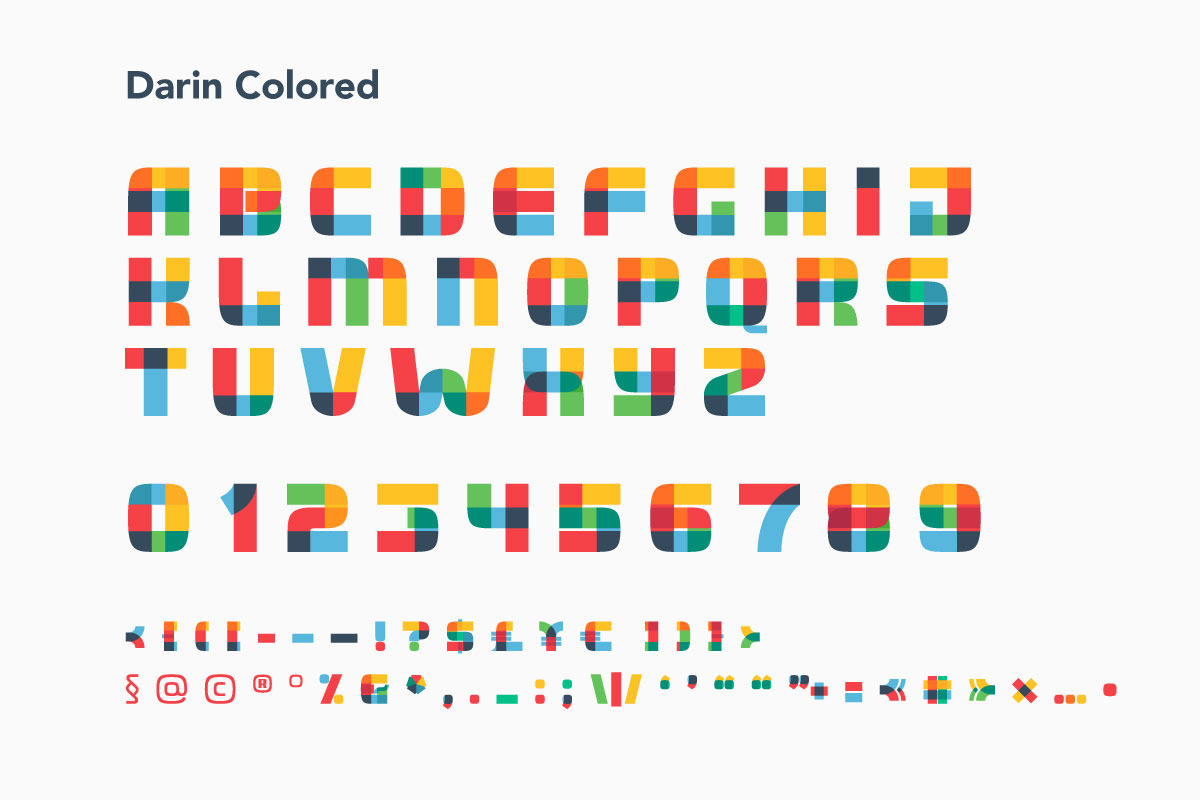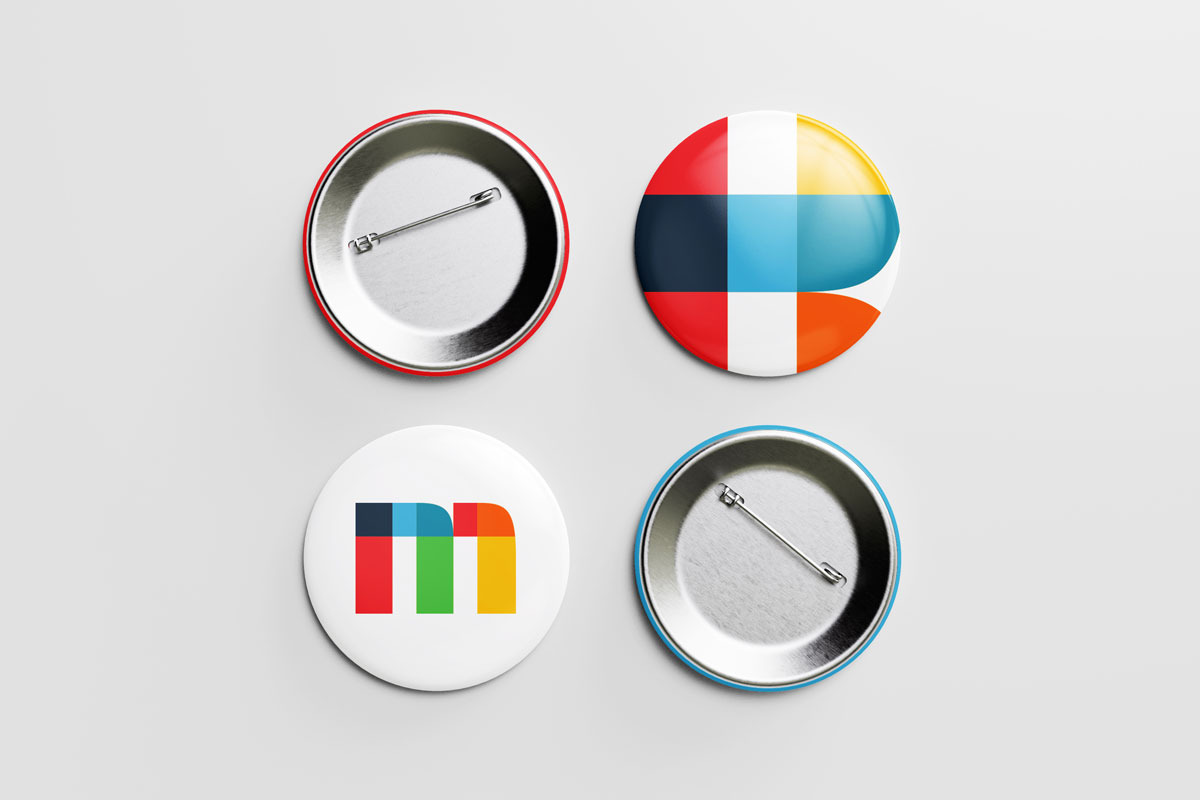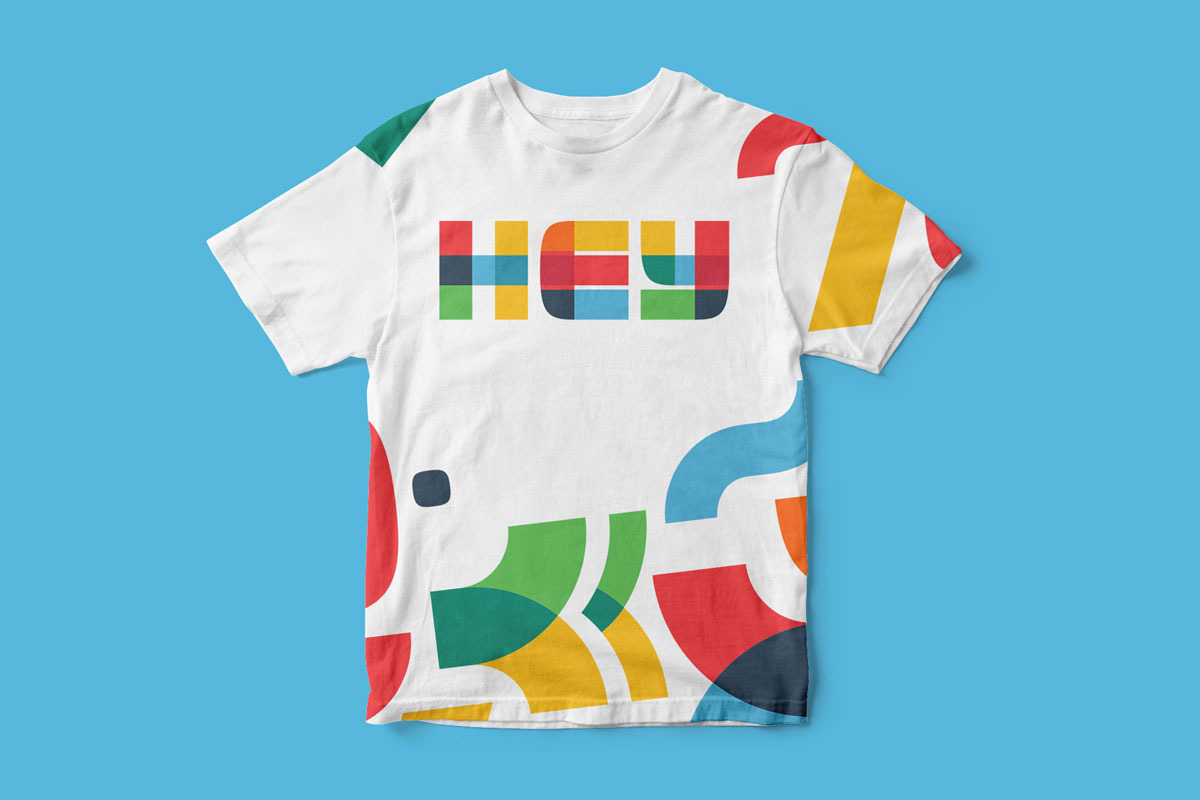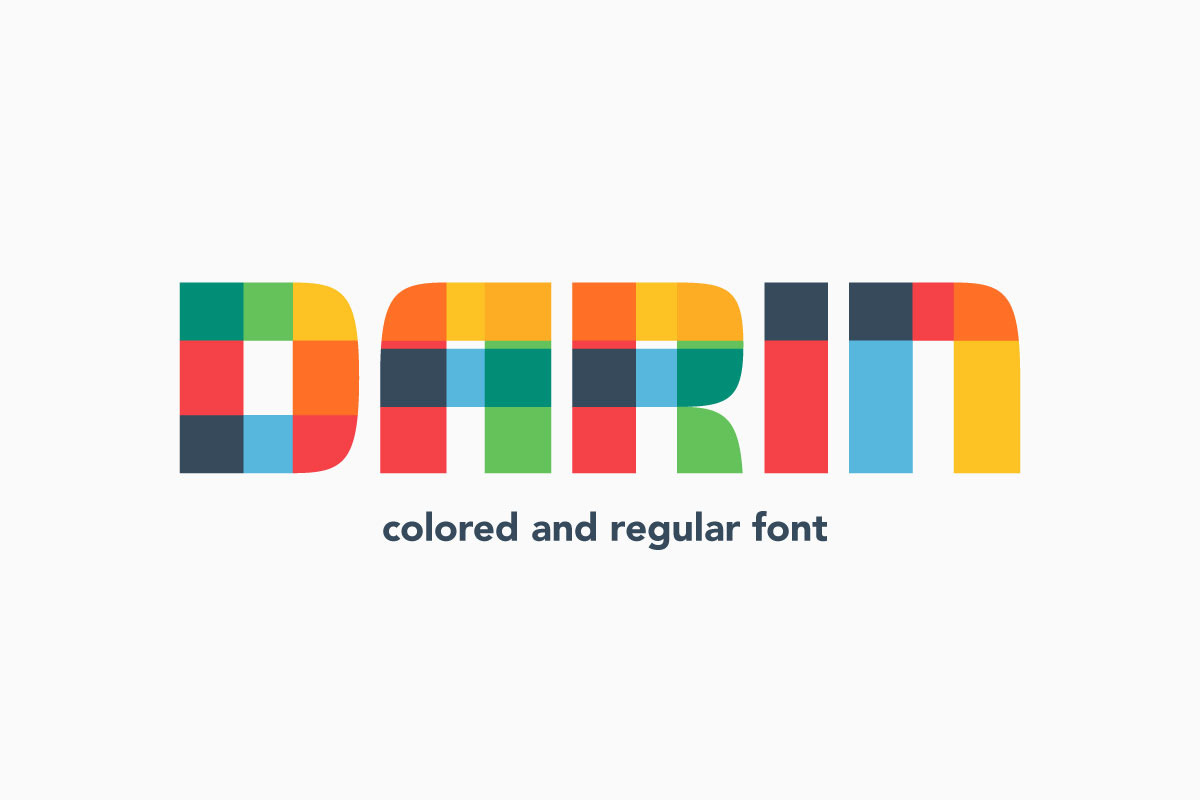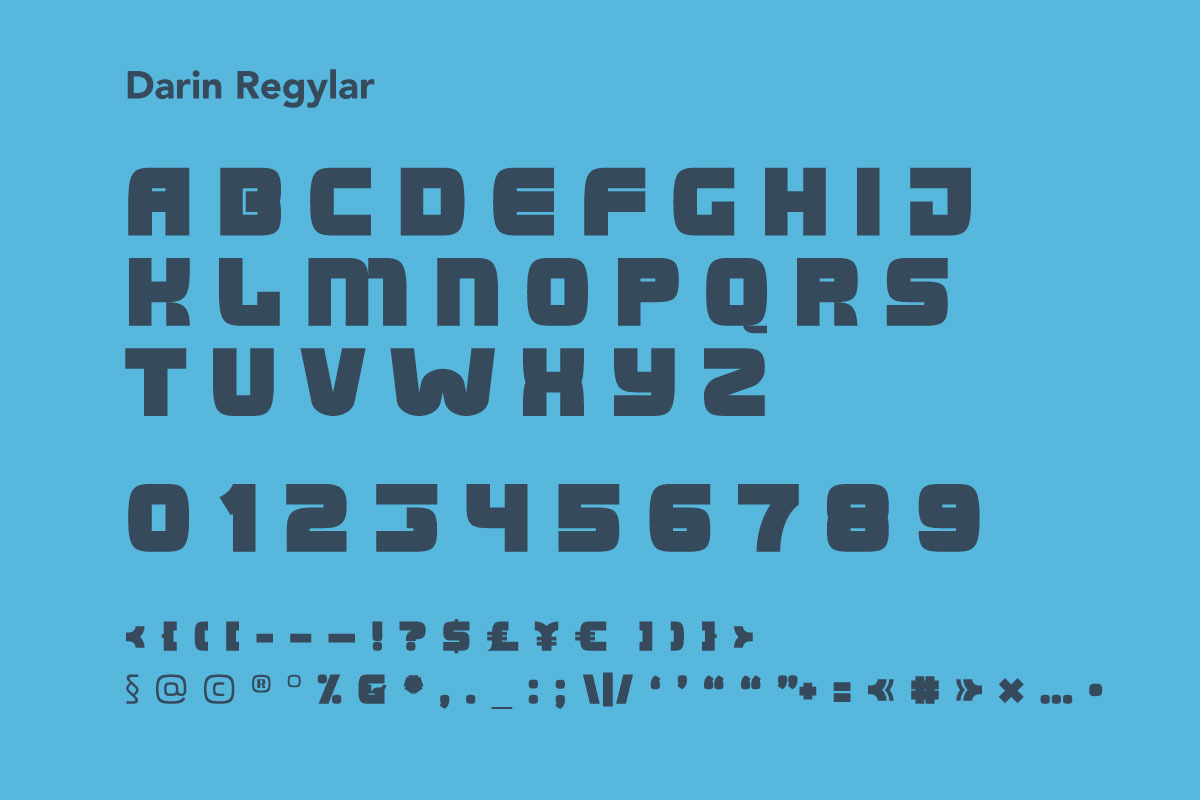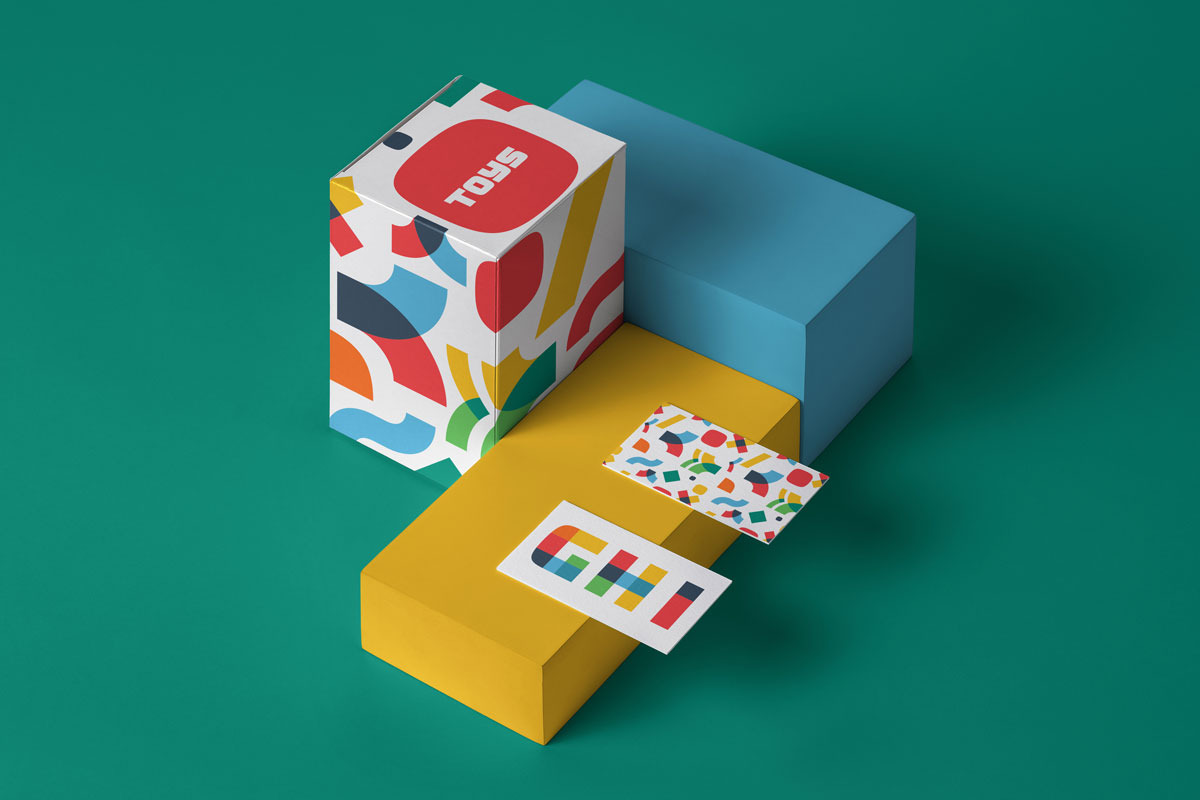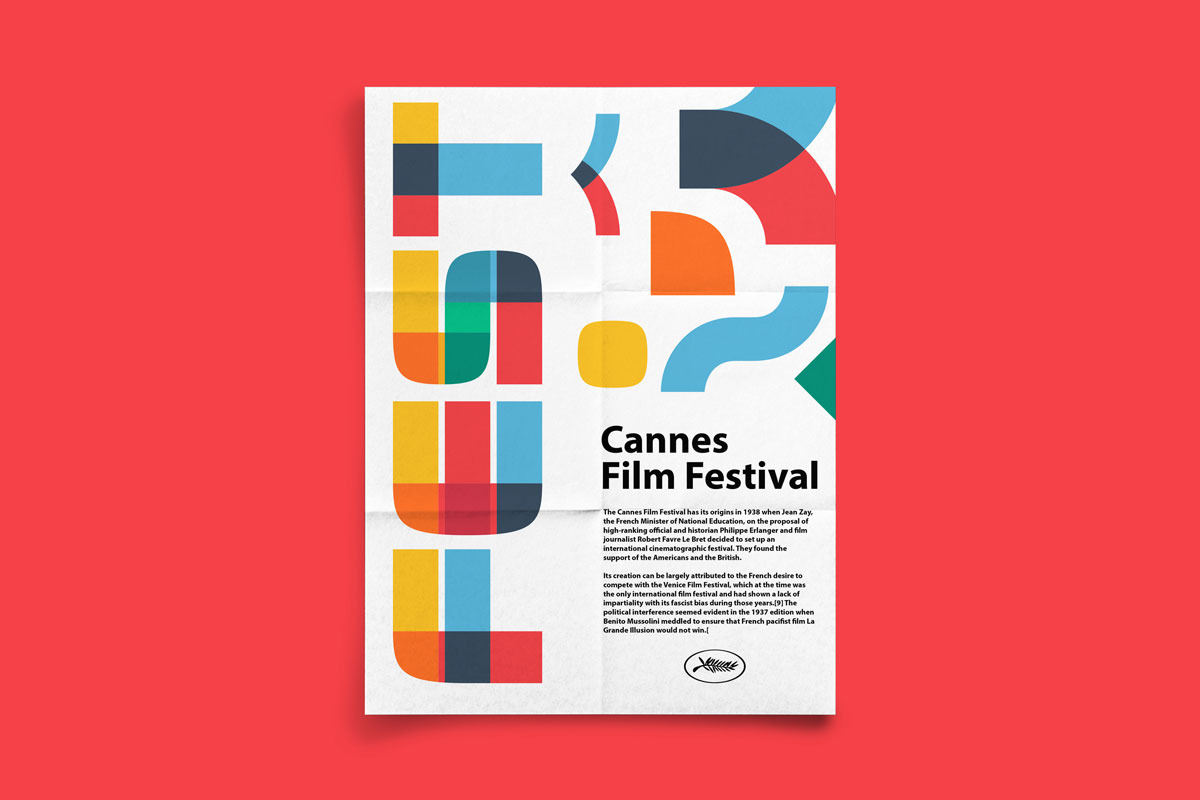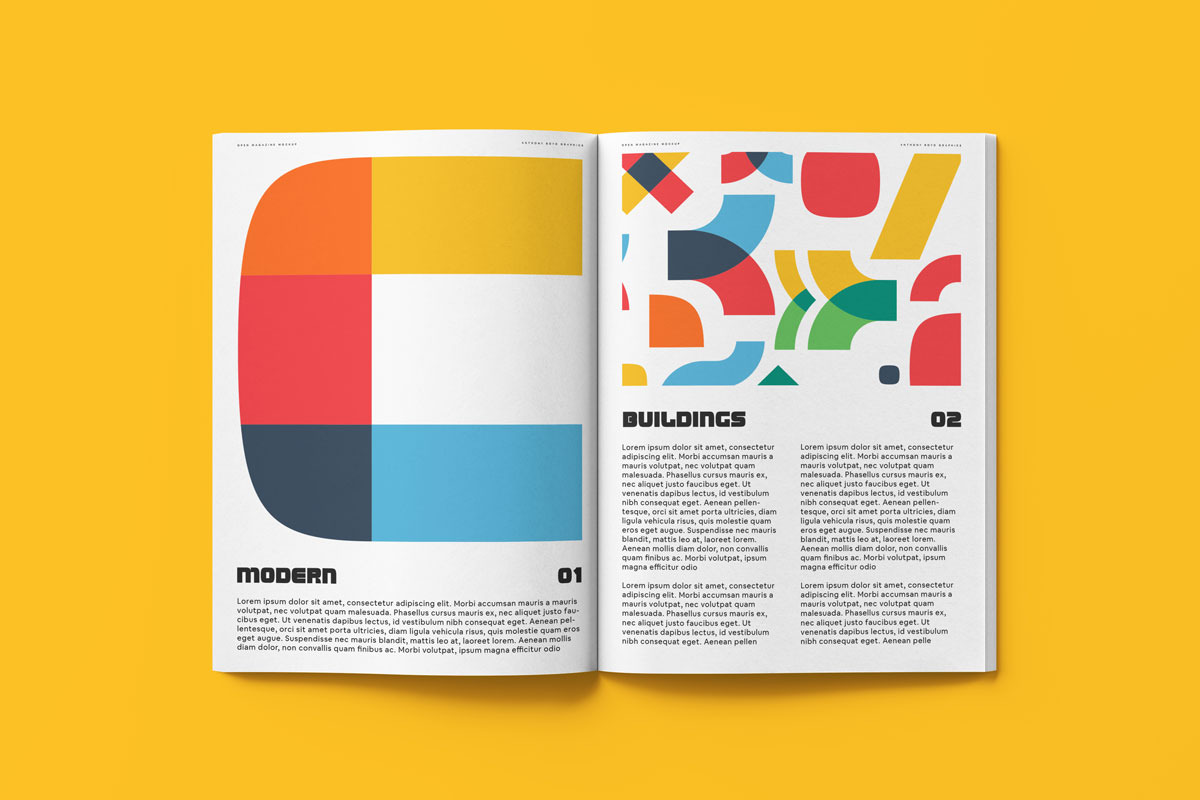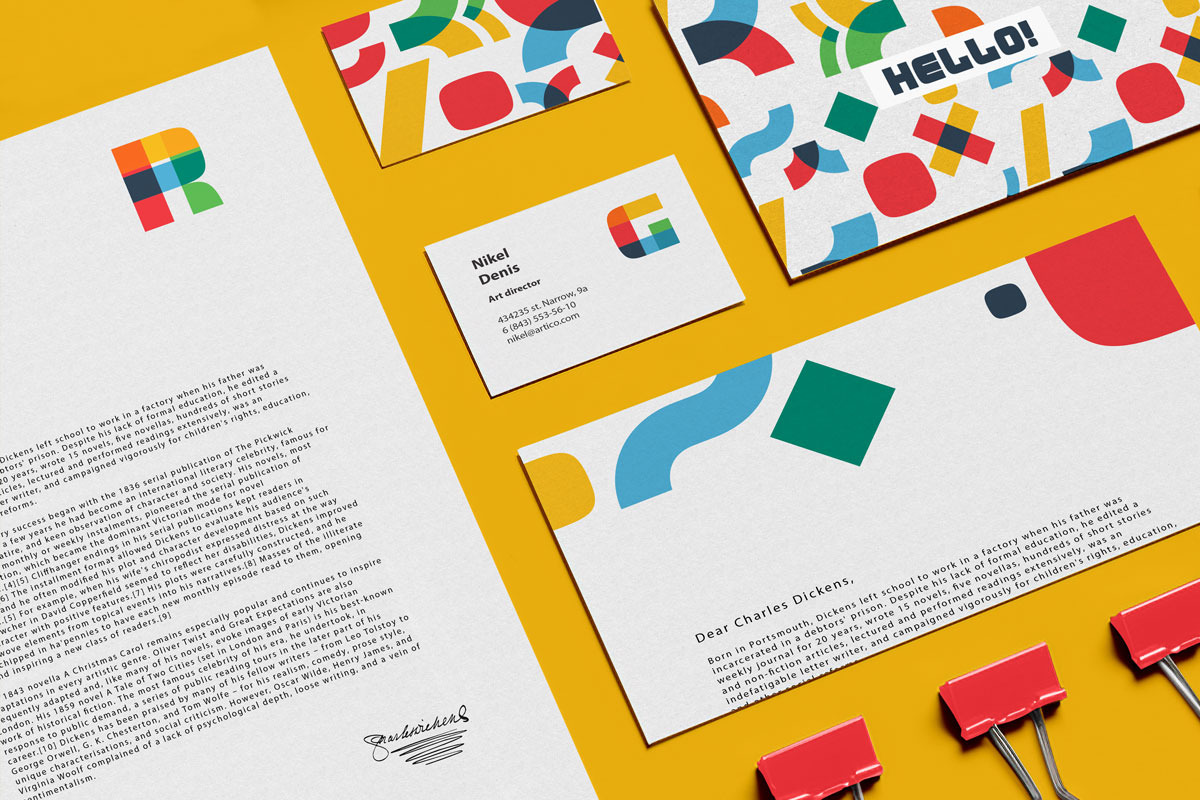
Darin colored and regular font
Hey, friends! I’m here for you with my new colored font Darin. All the letters in this font are colored brightly and vividly with colors overlay. You can use it in your corporate identity, in magazines, posters, clothes design, and others. In addition, I've attached the pattern I used in a presentation.
- Colored style
- Regular style
- Uppercase only